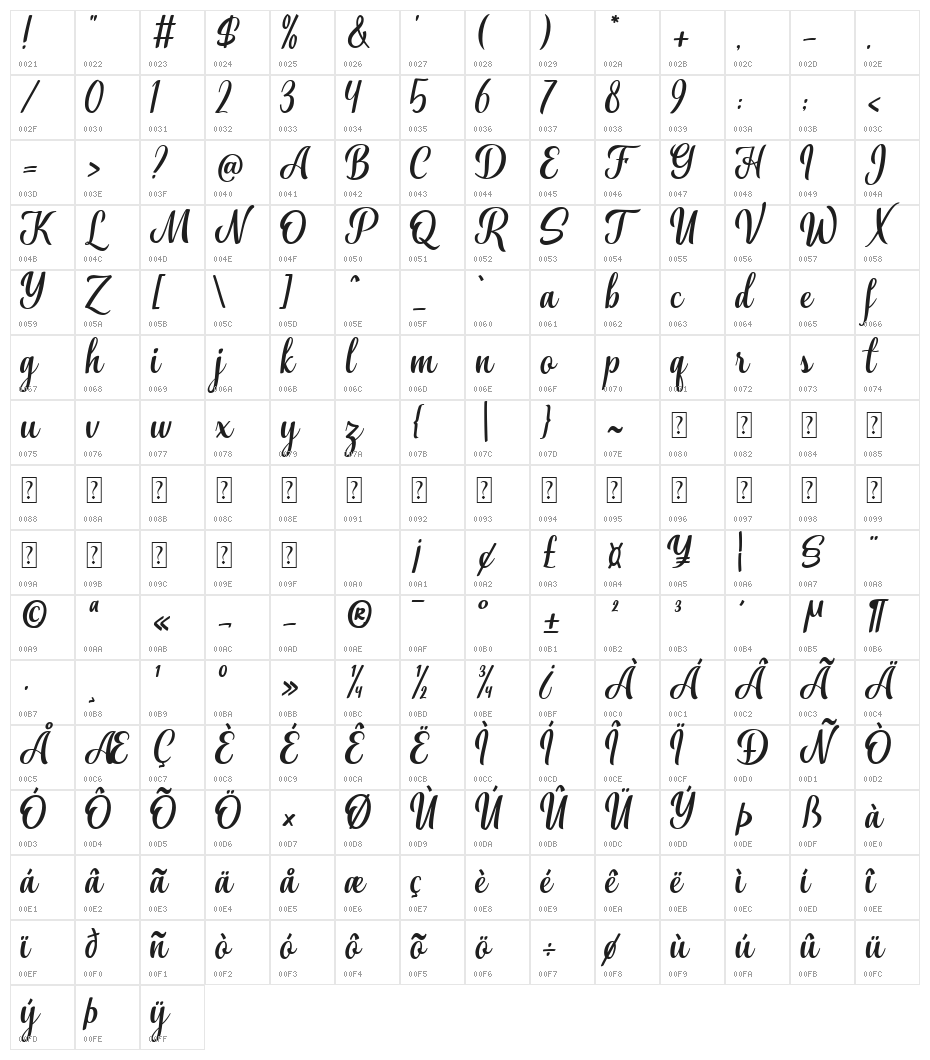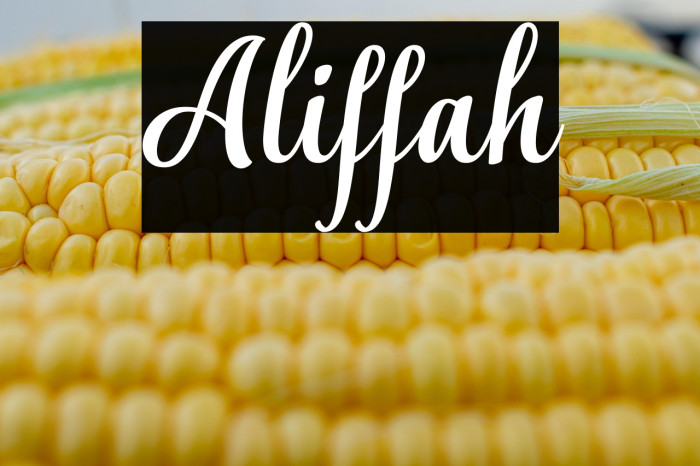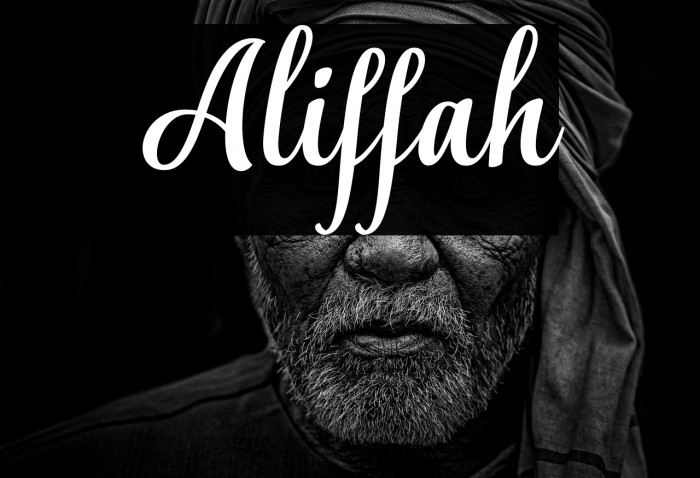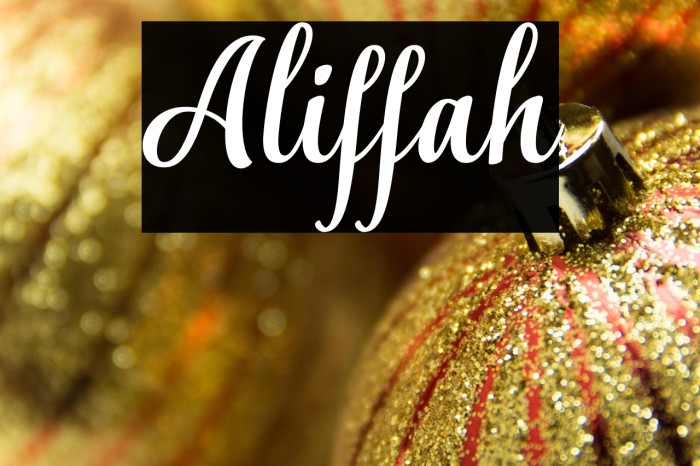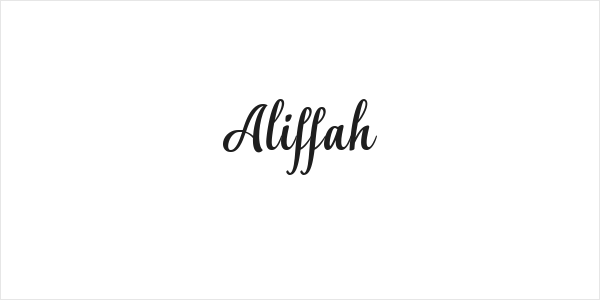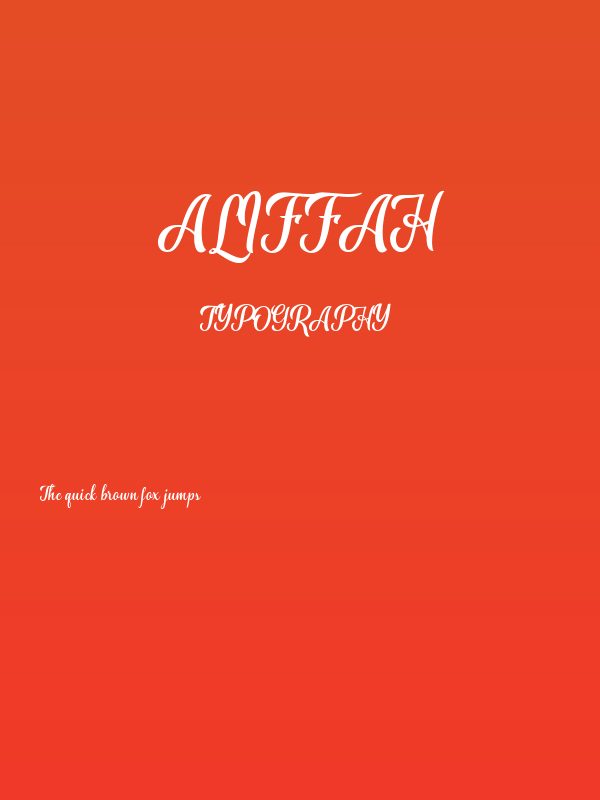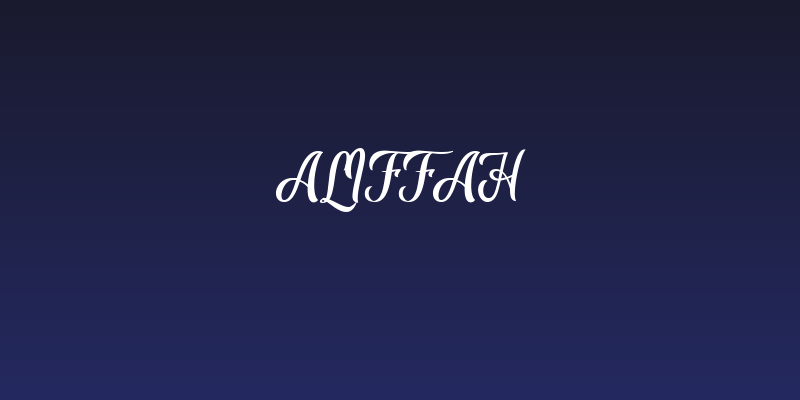
Aliffah Font
Aliffah Description
This font features a dynamic and flowing script style, characterized by its elegant curves and smooth connections between letters. The uppercase letters are bold and prominent, with a slight slant that adds a sense of motion and sophistication. The lowercase letters maintain a consistent flow, enhancing readability while preserving the artistic flair. Numbers and special characters are designed with the same attention to detail, ensuring a cohesive look across all elements. This font's overall appearance is both stylish and versatile, making it suitable for a variety of design applications.
| Proposed Projects | Ideal for wedding invitations, branding, logo design, and elegant packaging. |